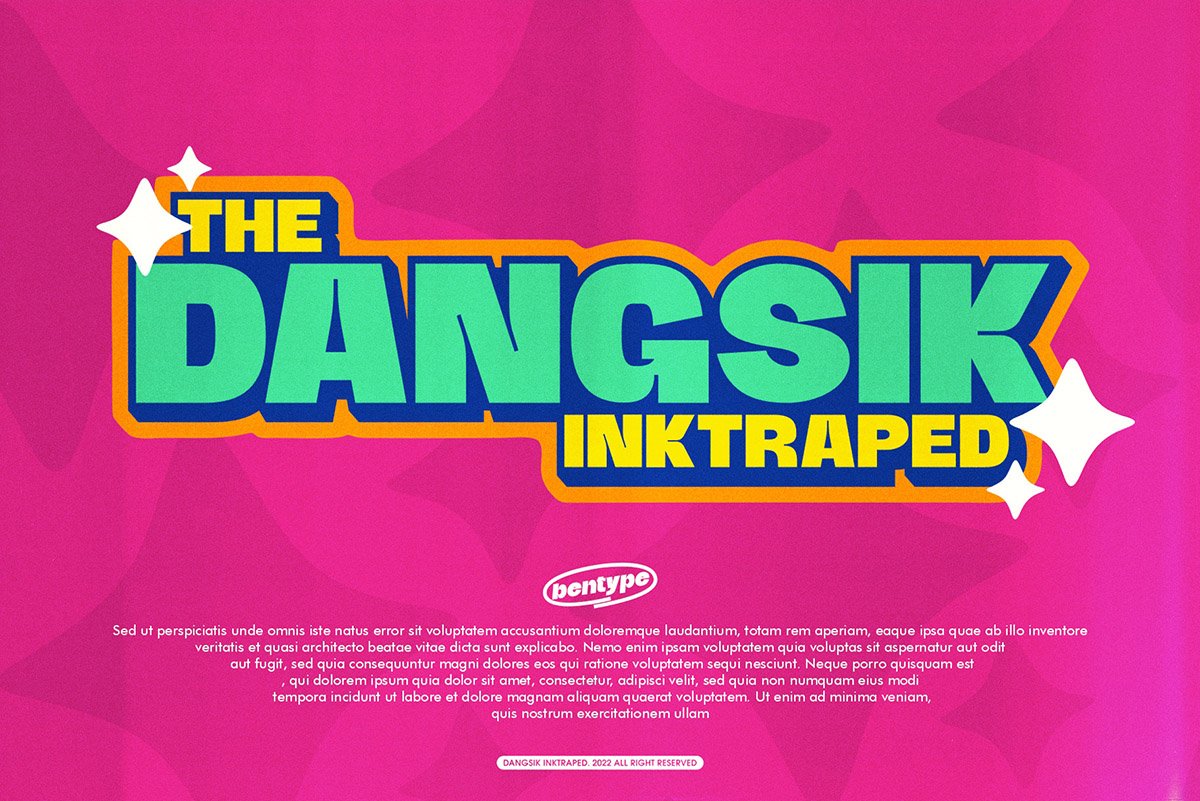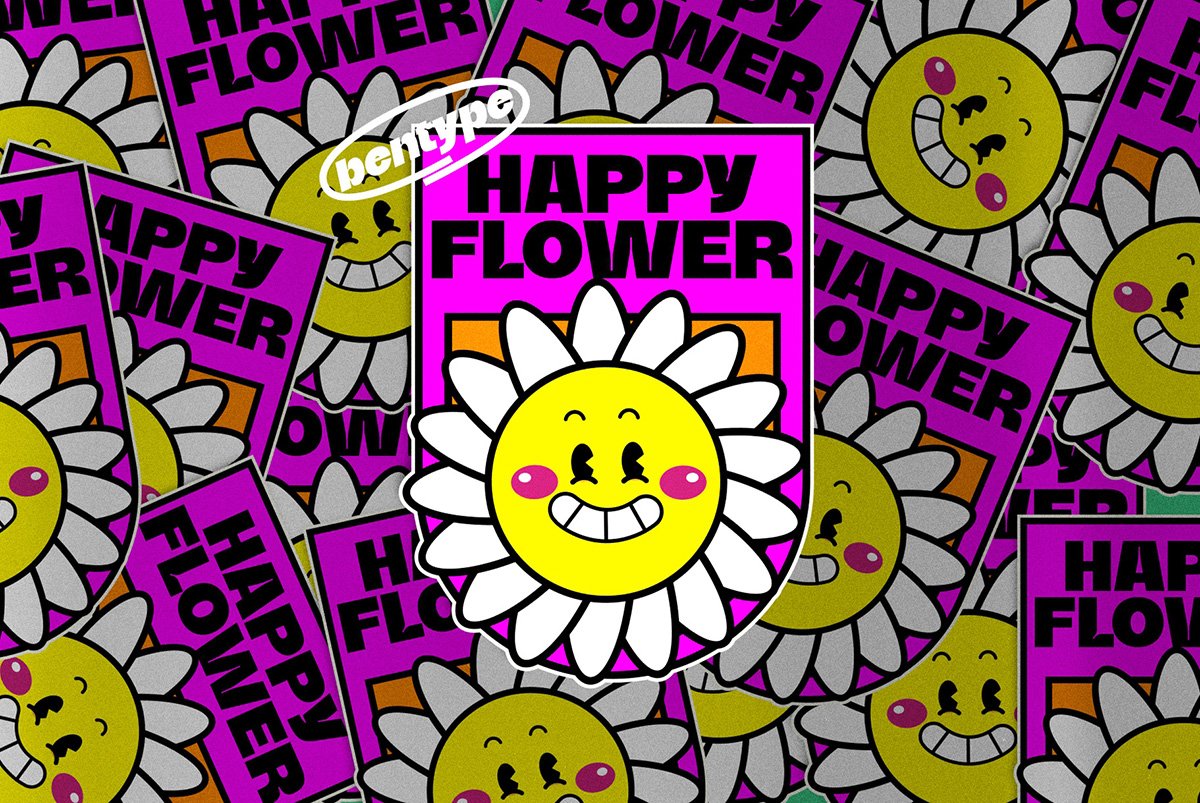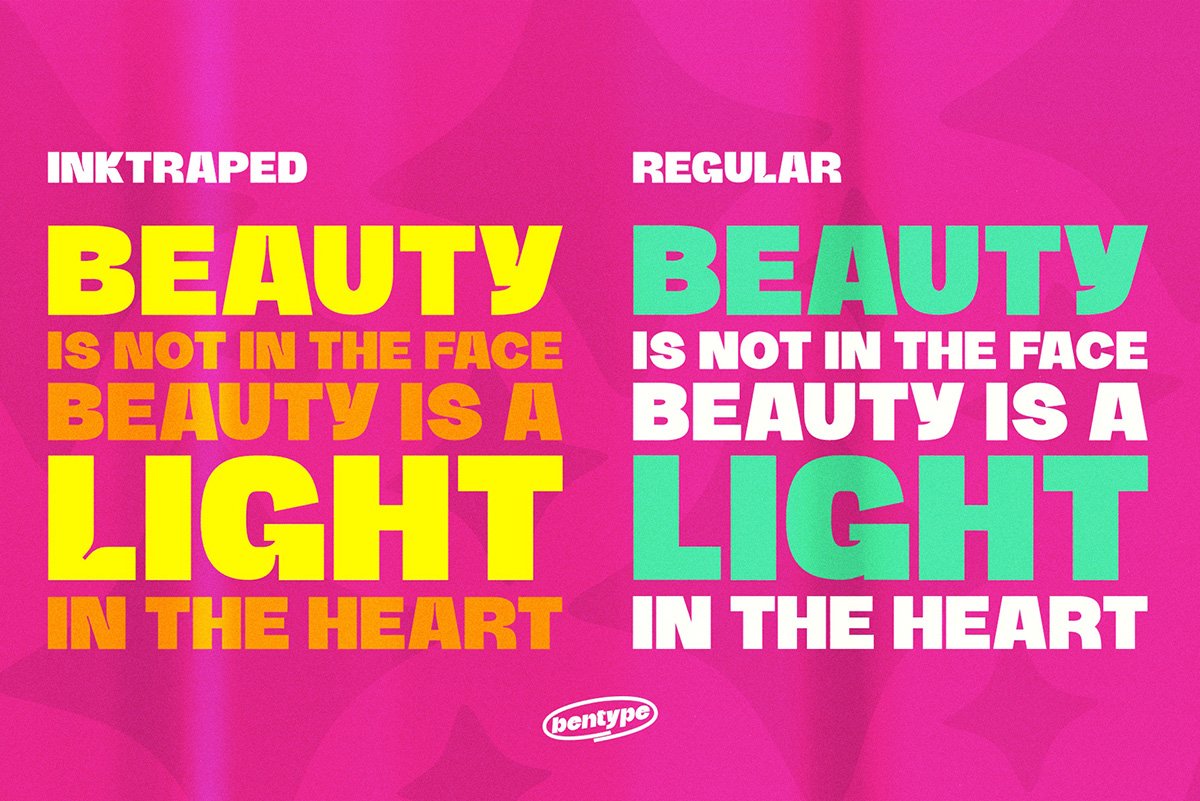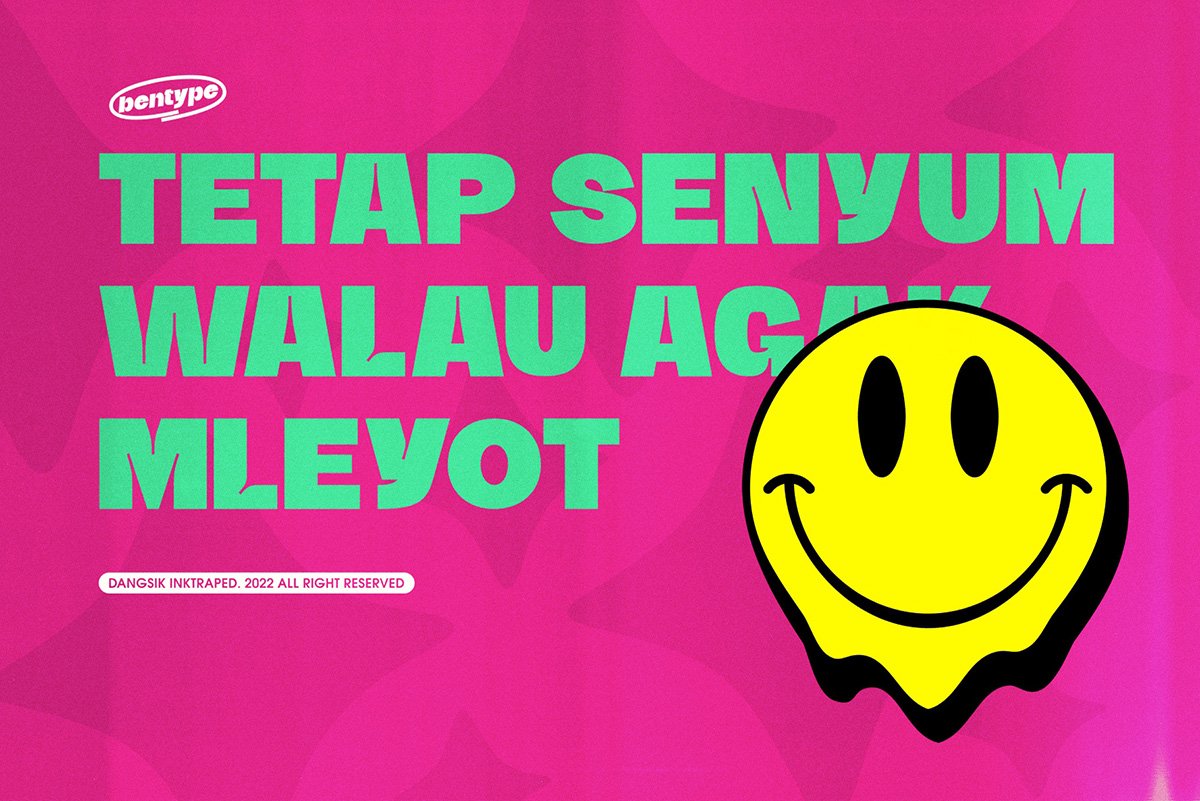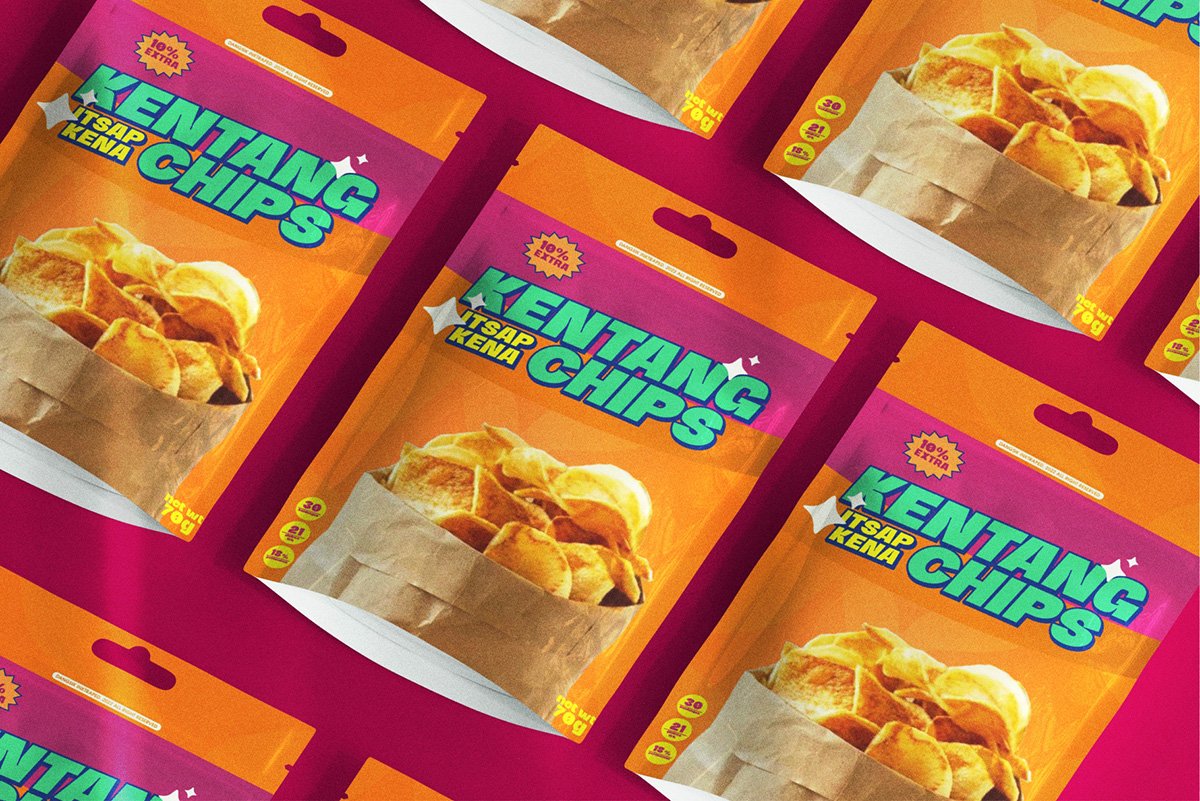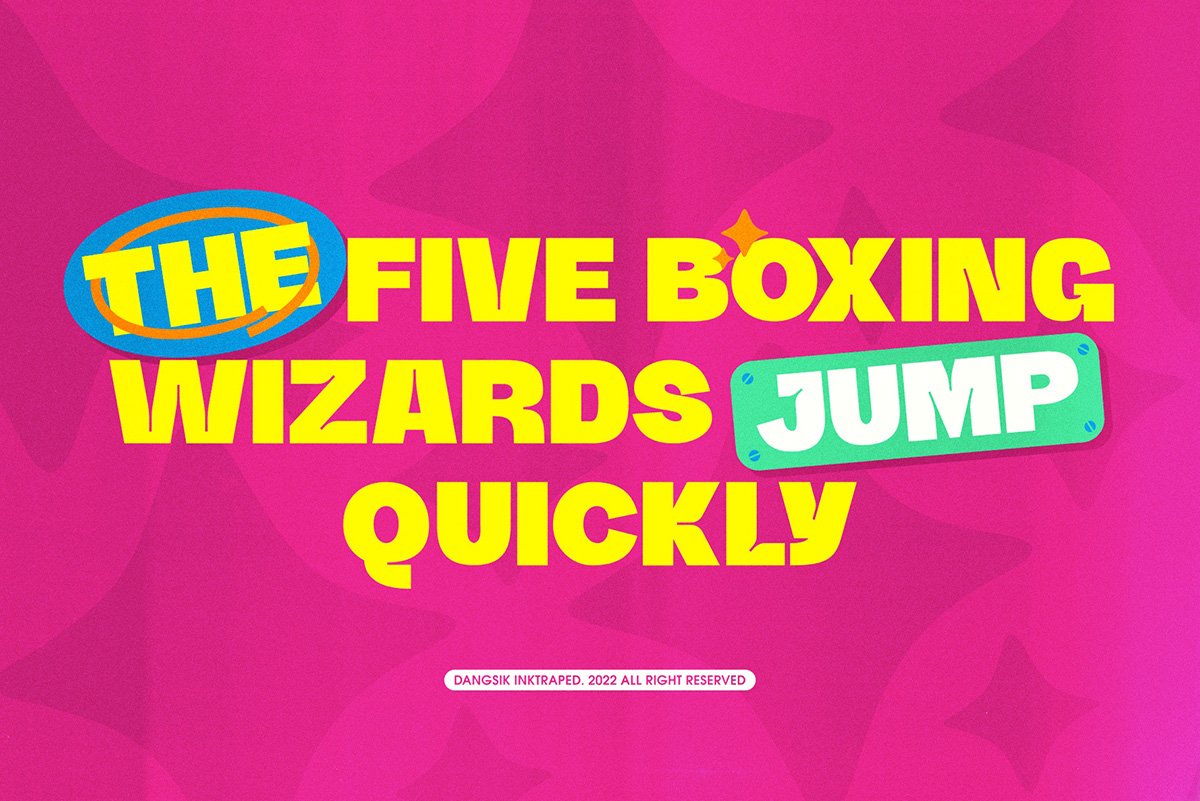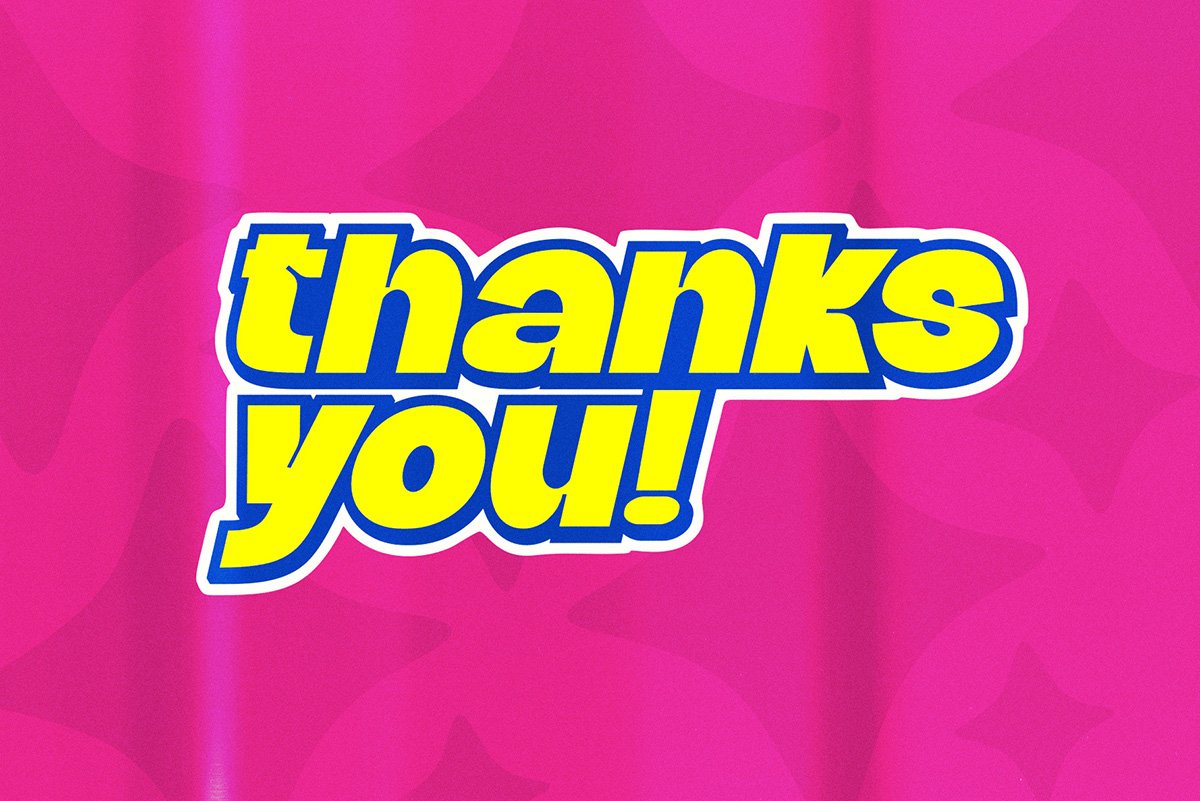
Dangsik – Bold Inktraped Font is here! This font is named Dangsik, the one that occupies the largest available space. In addition to the bold structure, there are ink-traped details that complement the composition.
DANGSIK